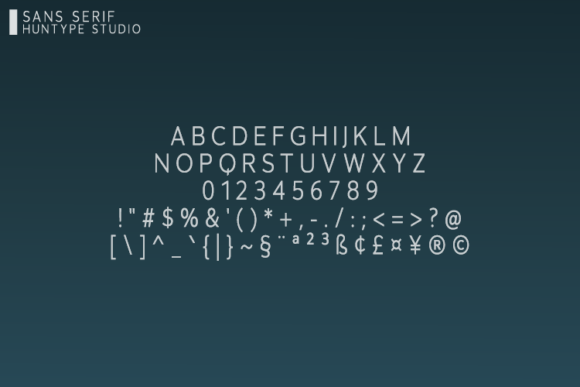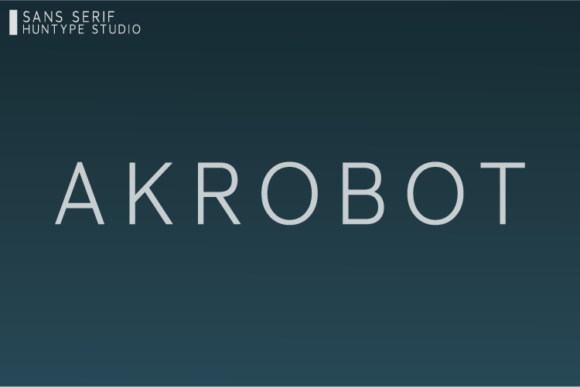
The Akrobot Font: Elevating Your Designs with Elegance and Versatility
I’ll never forget the moment I stumbled upon the Akrobot font while working on a branding project for a luxury client. I had spent hours scouring font libraries, but nothing seemed quite right – until I saw Akrobot. Its sleek lines and elegant curves instantly resonated with the project’s sophisticated vibe. I knew right then and there that I had found the perfect fit. In this article, I’ll share my experience with Akrobot, its features, and how to make the most of this beautiful sans serif font.
An Honest Review of Akrobot
What I Love About Akrobot ✨
- ✅ Distinctive yet elegant design that adds a touch of sophistication to any project
- ✅ Well-balanced Latin details with subtle contrasts that create visual interest
- ✅ Maximum versatility, making it suitable for a wide range of design applications, from logos to body text
- ✅ Easy to read and understand, even at smaller font sizes
While Akrobot is an exceptional font, there are a few minor considerations to keep in mind:
- 🤔 Some users may find the font’s elegance and subtlety make it less suitable for very casual or playful projects
- ⚠️ As with any font, it’s essential to test Akrobot with your specific language and script to ensure optimal performance
The Backstory of Akrobot
Akrobot was designed with the goal of creating a modern sans serif font that blends traditional influences with contemporary aesthetics. The designer’s inspiration came from the intersection of classic typography and modern design principles, resulting in a font that is both elegant and versatile.
Q: What type of projects is Akrobot best suited for?
A: Akrobot is an excellent choice for luxury branding, advertising, and editorial projects that require a touch of elegance and sophistication.
Q: Can I use Akrobot for body text?
A: Yes, Akrobot is designed to be highly legible, making it suitable for body text in both print and digital applications.
Q: Does Akrobot support OpenType features?
A: Yes, Akrobot supports OpenType features, including glyphs and stylistic alternates, which can be accessed in compatible applications.
Q: Is Akrobot suitable for non-Latin scripts?
A: Akrobot’s Latin character set is well-supported, but it’s essential to test the font with your specific language and script to ensure optimal performance.